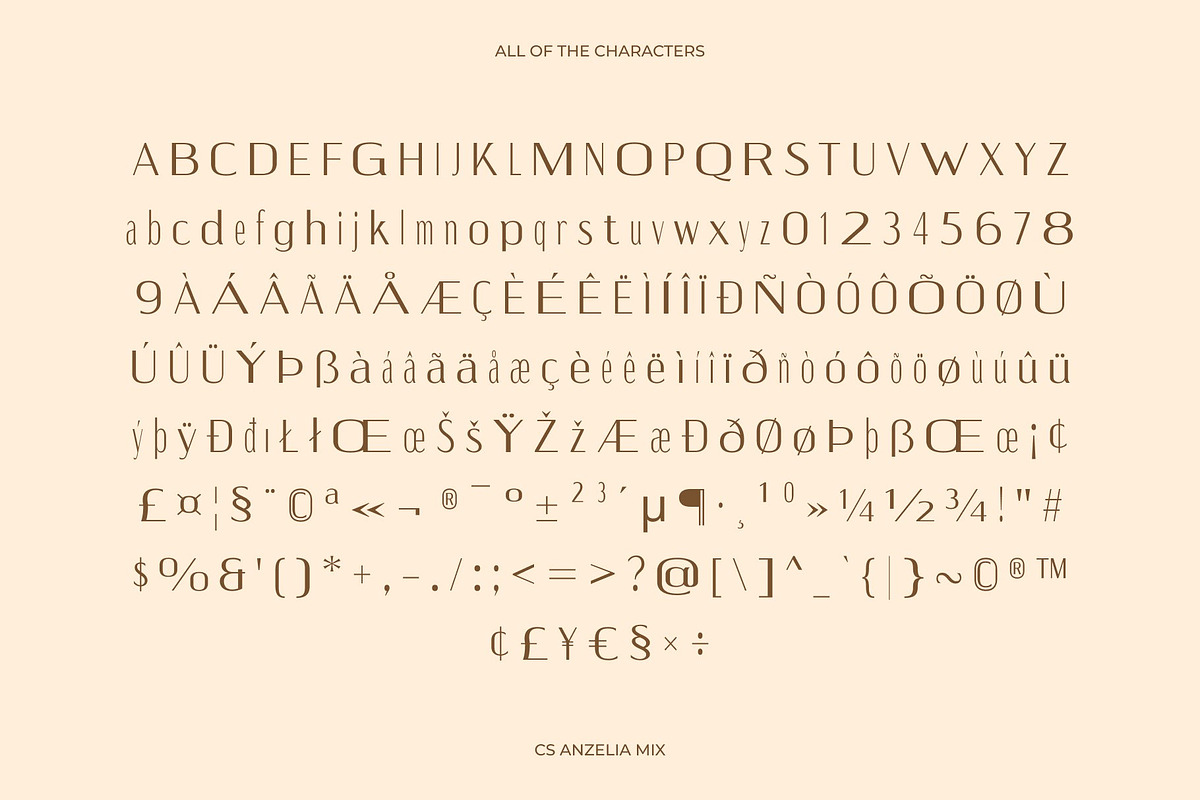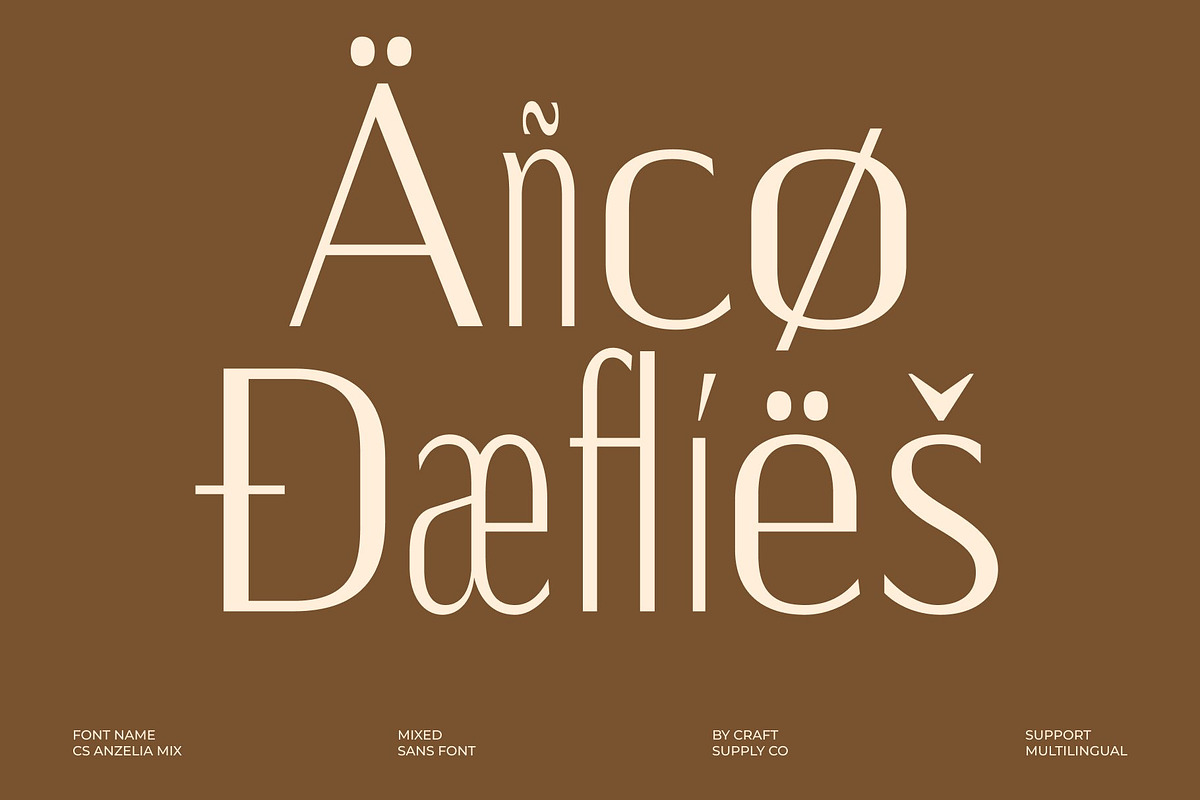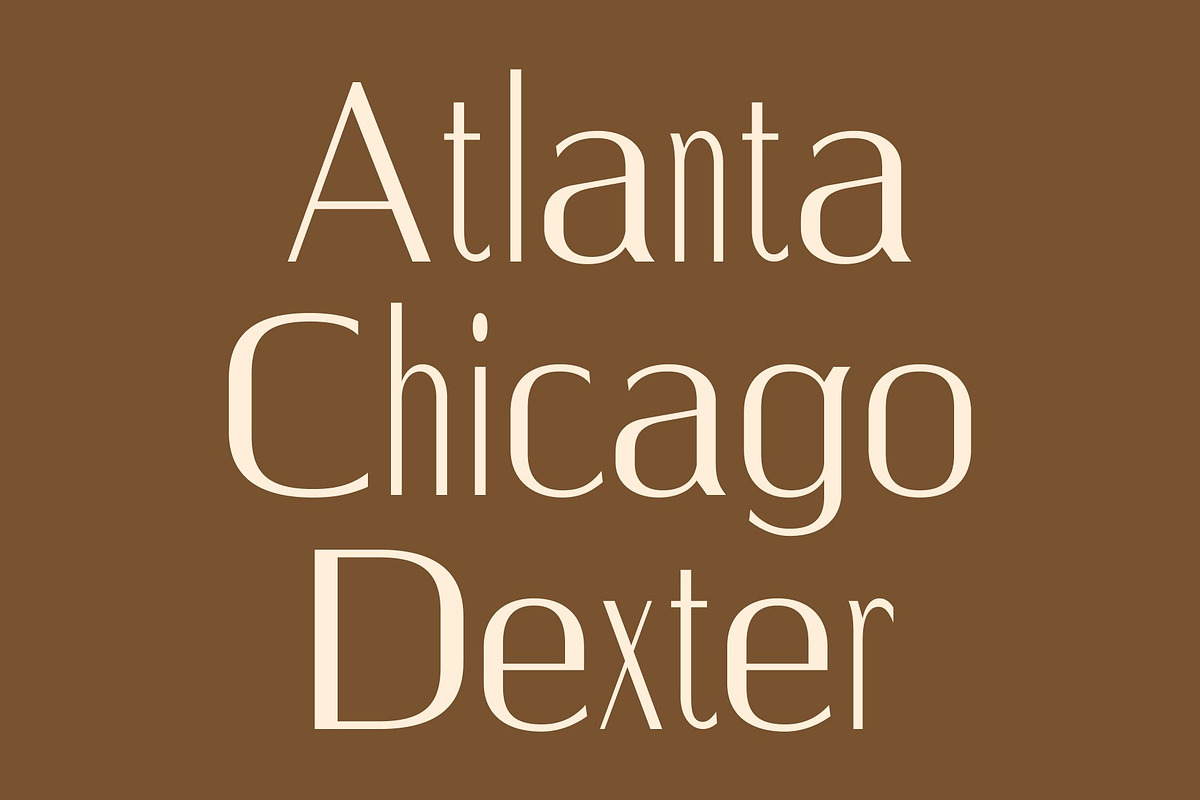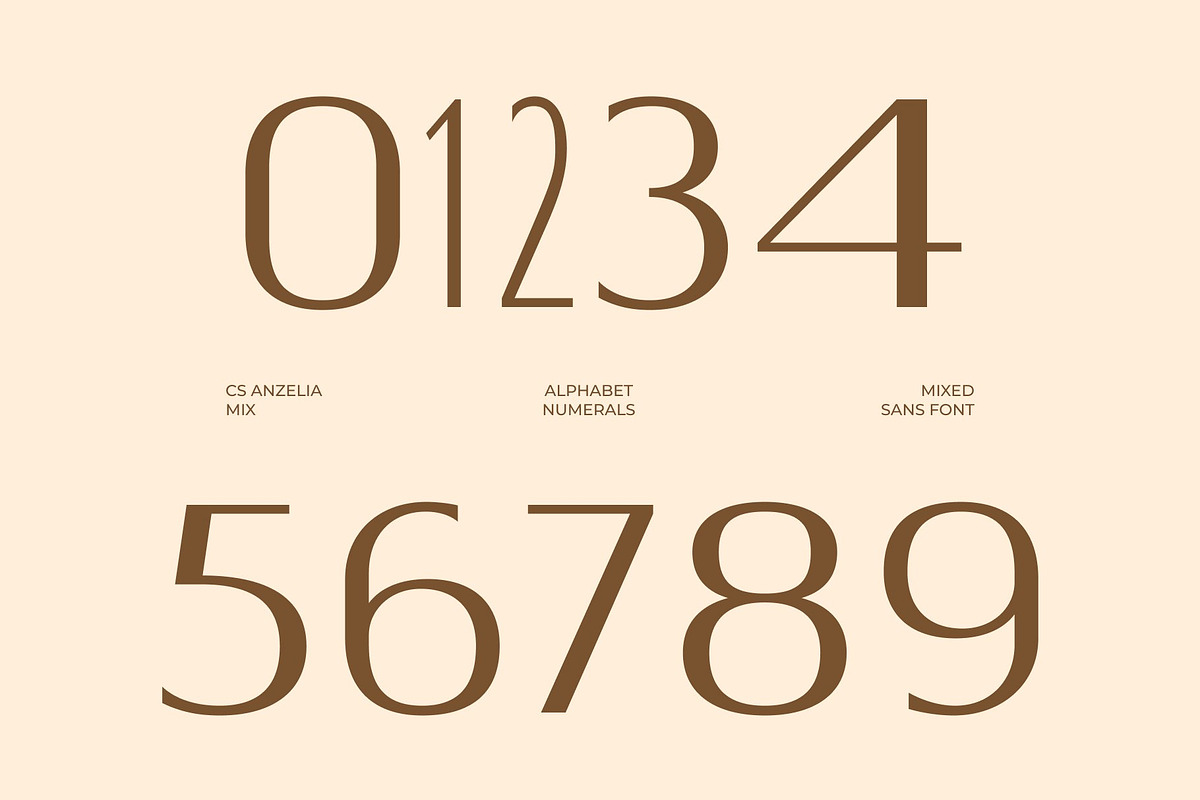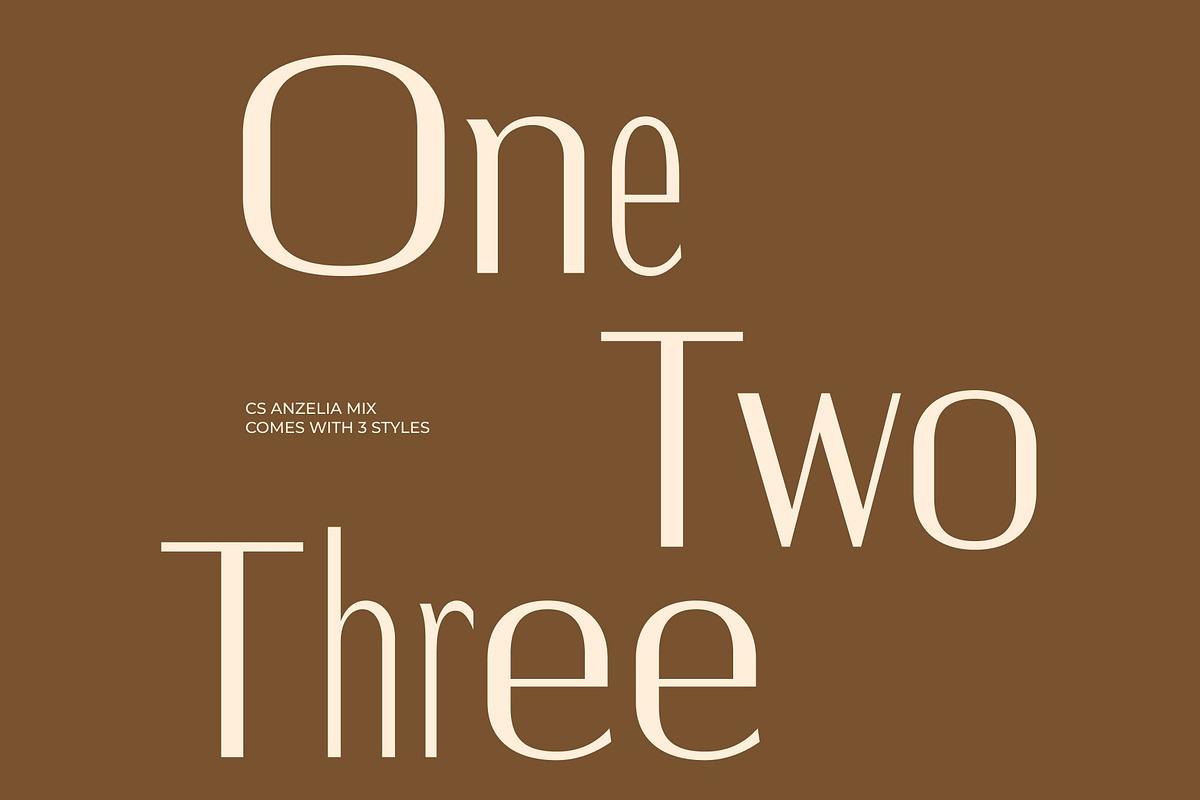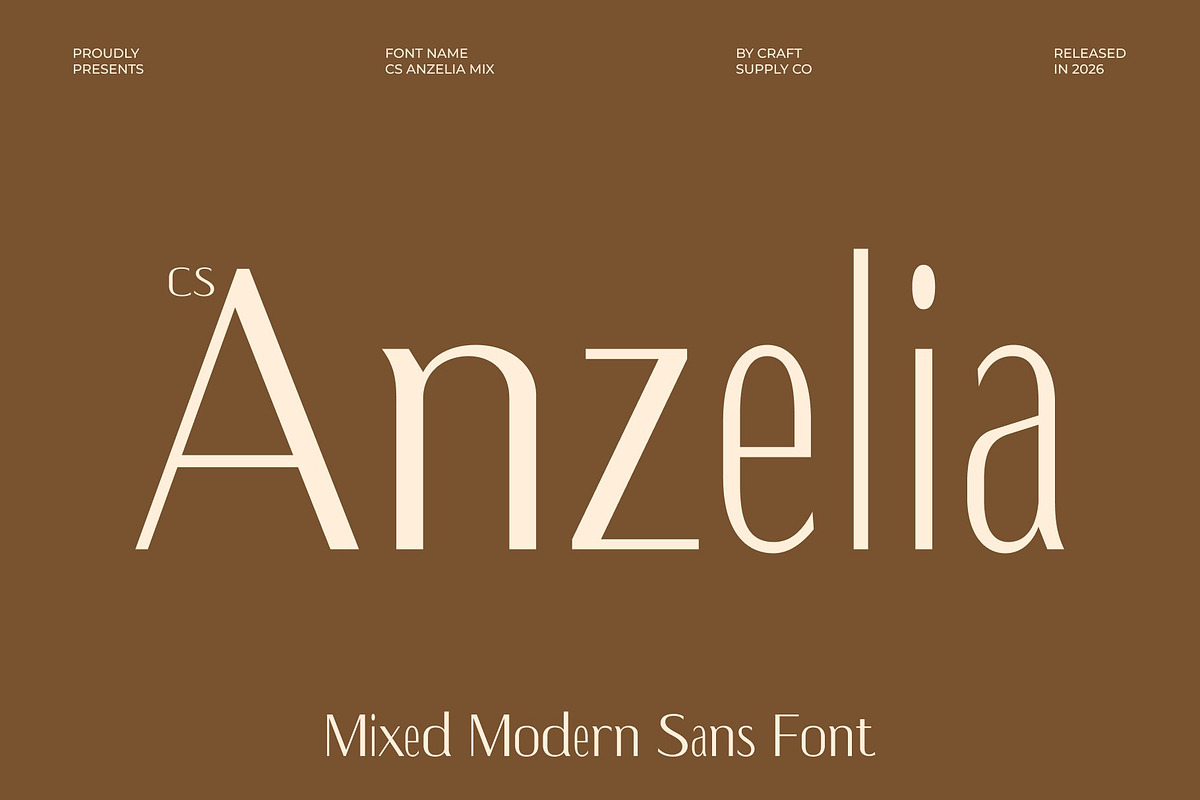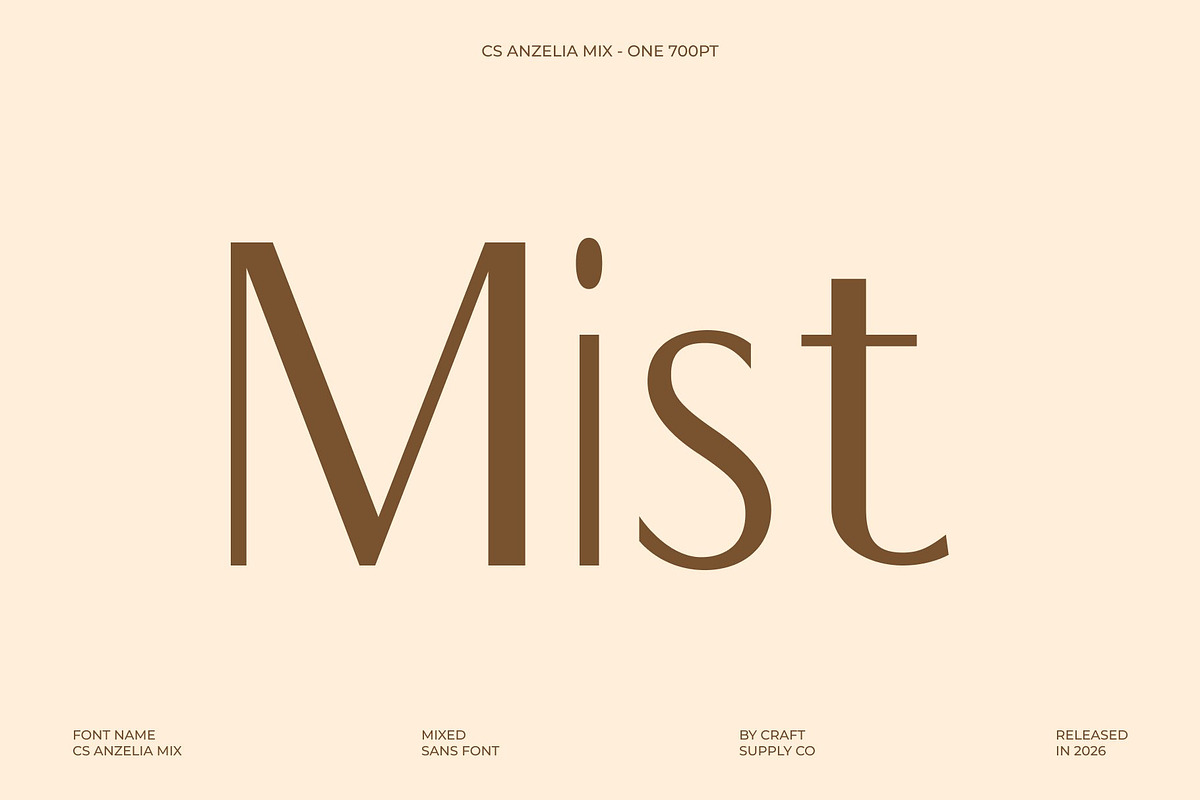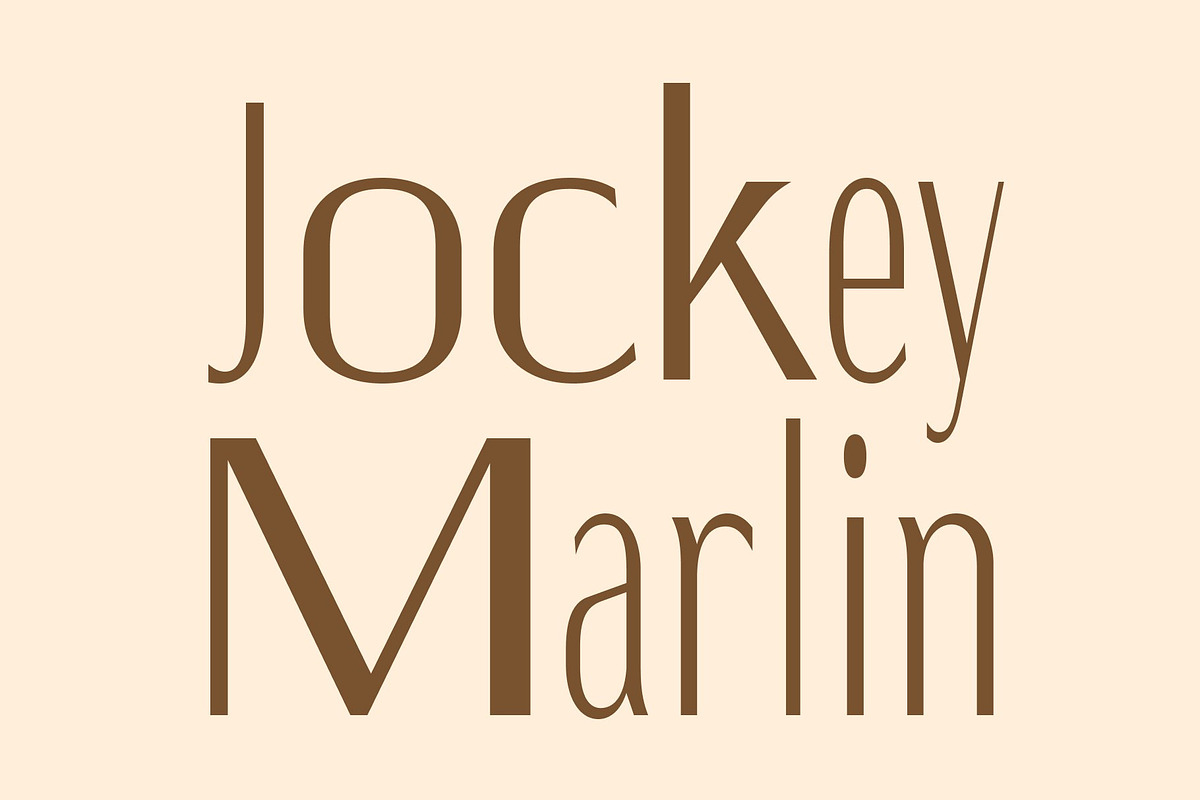
CS Anzelia Mix
CS Anzelia Mix – Modern Sans Serif Font: Geometric Precision with Contemporary Elegance
Modern Sans Serif with Mixed Style Character This is a modern sans serif font designed to deliver professionalism, clarity, and contemporary sophistication. Built with clean geometric forms and balanced proportions, this typeface introduces a distinctive mixed-style concept that adds subtle contrast and visual rhythm to every composition. It transforms minimalist typography into a refined design element that feels modern, polished, and highly versatile.
A Dynamic Blend of Bold and Regular Letterforms The defining strength of this font lies in its thoughtful fusion of bold and regular styles. This mixed-weight approach creates a smooth typographic hierarchy that enhances readability while adding depth and personality. The contrast between strong and balanced strokes introduces visual movement, giving layouts a more engaging and contemporary appearance without compromising clarity.
Geometric Structure with Professional Appeal This font embraces modern geometry through sharp lines, structured forms, and carefully balanced spacing. Its sleek construction creates a clean and organized visual presence that communicates confidence and professionalism. The minimalist design ensures versatility across various creative and corporate environments.
Perfect for Branding, Web Design, and Marketing Materials From websites and corporate identities to promotional campaigns and editorial layouts, this font adapts seamlessly across a wide range of design applications. Its excellent readability ensures strong performance in both large headlines and smaller text sizes, while its contemporary aesthetic enhances visual communication with a sophisticated edge.
CS Anzelia Mix One
CS Anzelia Mix Two
CS Anzelia Mix Three